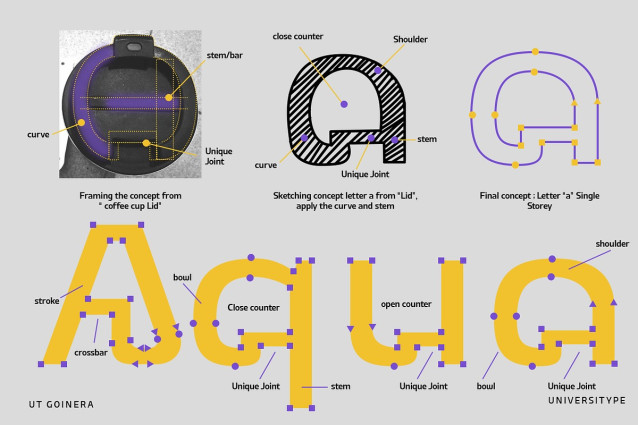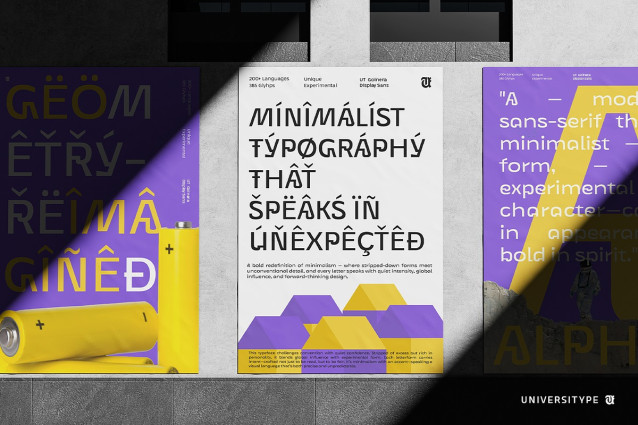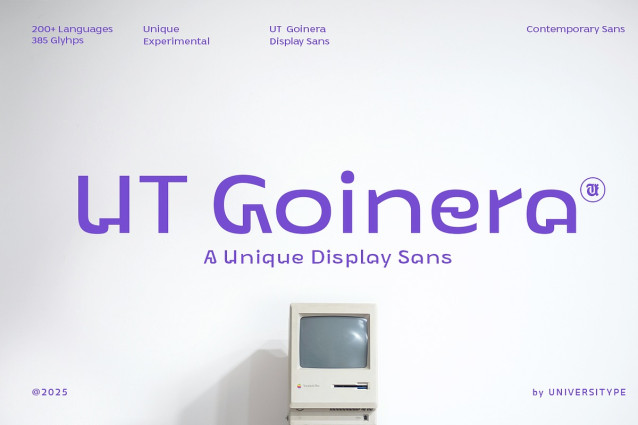
UT Goinera Font
UT Goinera Font is a typeface that draws its inspiration from the everyday yet delivers a design that feels both thoughtful and modern. This minimal geometric typeface is perfect for designers, branding experts, UI/UX professionals, and creatives who appreciate clean structure with a touch of personality.
The journey of UT Goinera began with a seemingly mundane object: a coffee cup lid. The way the lid curves, locks together, and creates a satisfying closure sparked the idea of translating these tactile forms into a font structure. This inspiration led to the signature “joint” system seen throughout the letterforms, where curves, stems, and bars meet in a way that feels both industrial and soft. The single-storey “a” is a direct result of this exploration, embodying the typeface’s unique blend of simplicity and detail.